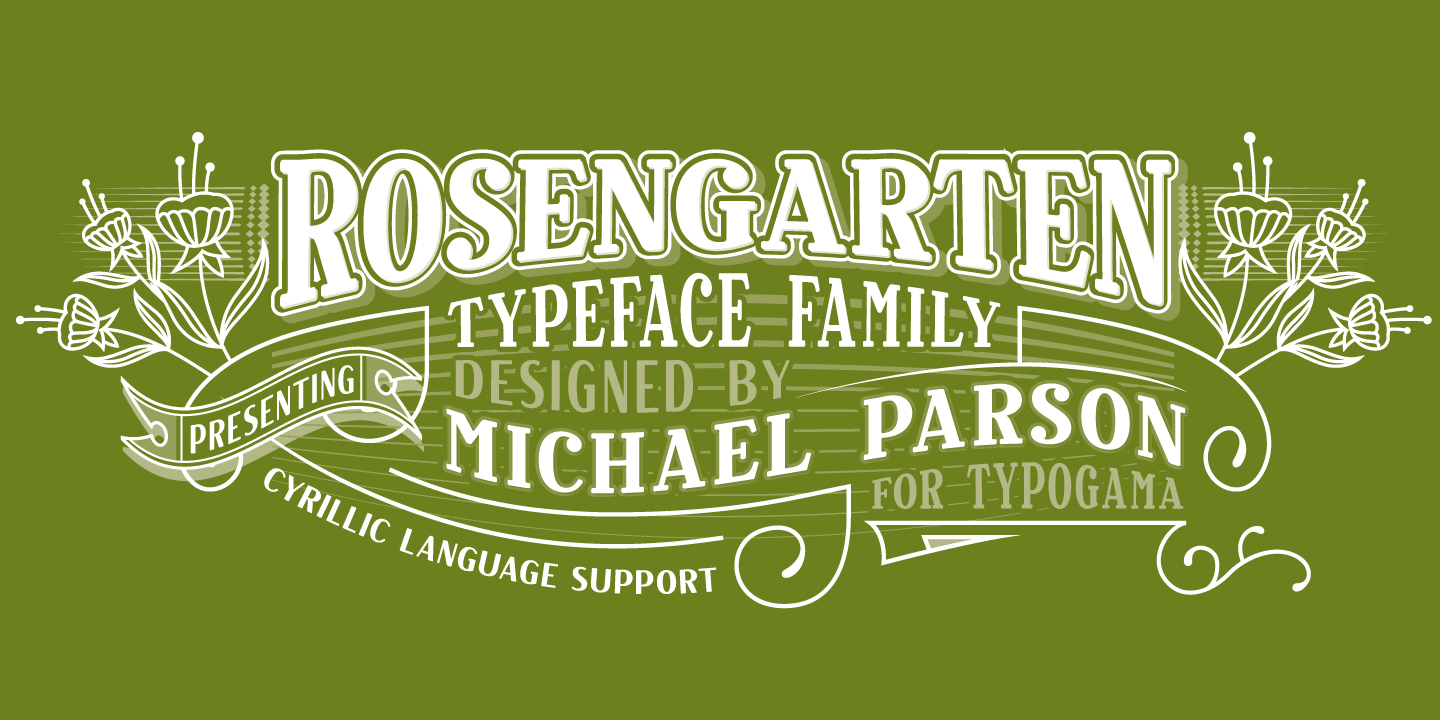
Rosengarten Font is perfect for garden centers, floral shops, romantic weddings, botanical publications, luxury perfume branding, rose gardens, feminine boutiques, spa communications, and elegant nature-inspired projects. This graceful typeface brings botanical elegance and romantic garden charm to projects requiring floral typography with natural beauty and sophisticated horticultural appeal.
What makes Rosengarten Font exciting is its botanical romance that captures the timeless beauty of rose gardens and floral artistry with remarkable elegance and natural sophistication that evokes the enchanting atmosphere of blooming gardens. The font features graceful letterforms with organic curves and floral character that reflects the delicate beauty of botanical design and the refined aesthetics of garden cultivation. Its romantic personality and natural elegance make it irresistible for luxury brands seeking typography that communicates organic beauty while celebrating the timeless appeal of floral design and horticultural artistry.
The Rosengarten Font family includes elegant weights and botanical styles: Light, Regular, Medium, Bold, and decorative variations with floral alternates and garden symbols. Each weight maintains the font's graceful character while offering designers creative flexibility for botanical branding and garden design applications requiring natural elegance and romantic visual presentation.
Whether you're designing for garden businesses or luxury beauty brands, Rosengarten Font Free Download offers designers an elegant, nature-focused typeface solution. The font's botanical aesthetics and romantic styling make it ideal for florists, garden centers, luxury cosmetics, and wedding planners. Its graceful presence ensures your message communicates natural beauty and romantic sophistication while maintaining excellent floral readability. The comprehensive character set includes botanical symbols and garden decorations, making it perfect for creating beautiful headlines and brand identities that celebrate floral artistry and establish meaningful connections with audiences seeking authentic garden experiences and romantic botanical luxury.